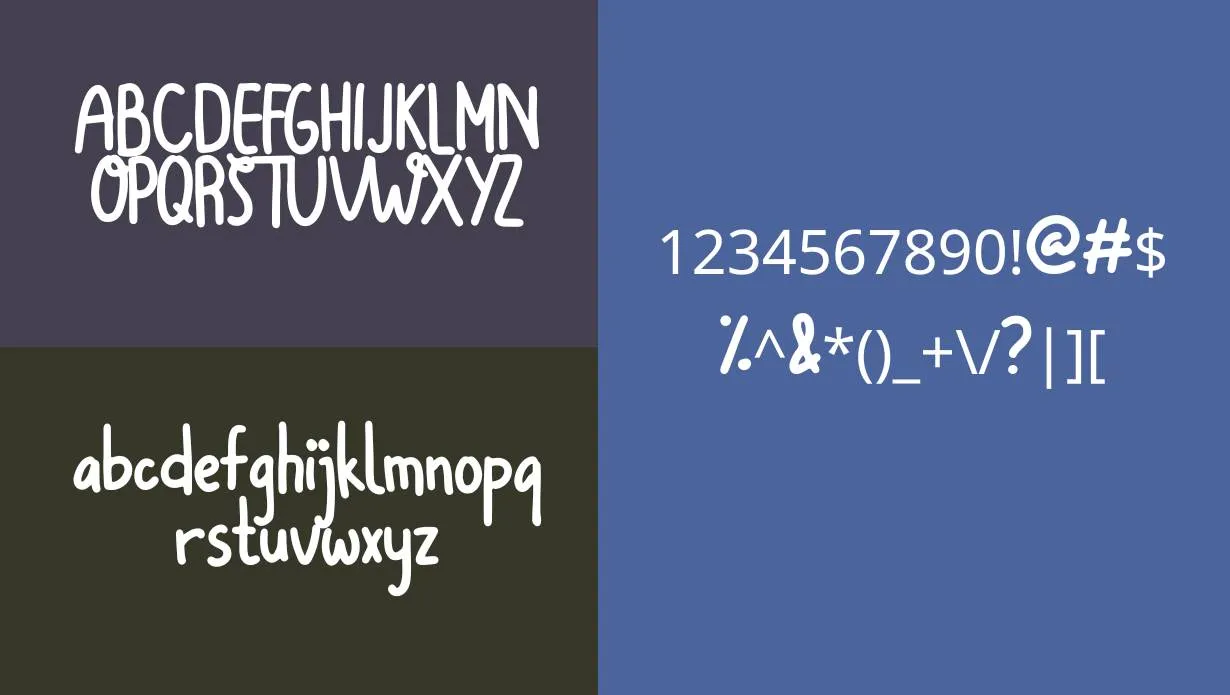
The Snow font, with its delicate and intricate design, is the perfect choice for seasonal greetings, winter-themed invitations, or decorative elements in various designs.
| Name | Snow Font |
| Designer | Typodermic Fonts |
It usually comes in a medium weight and standard width, ensuring readability in various applications. This font supports TTF, OTF, and WOFF file formats, maintaining consistency through capital letters.